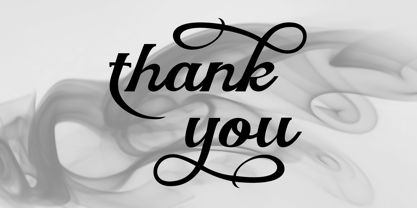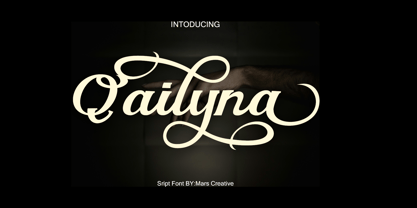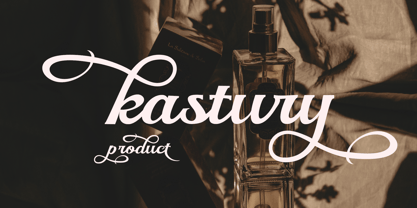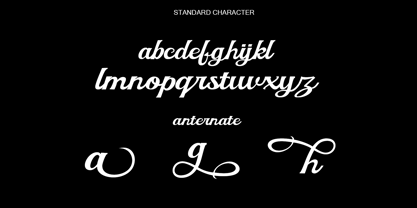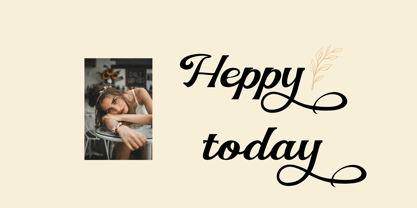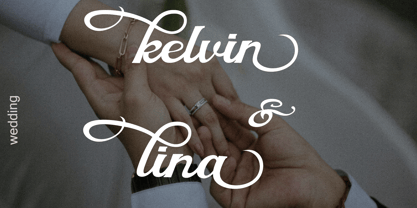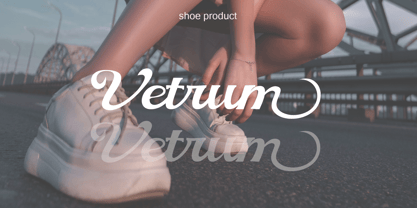
Qaelyna
by Mars Creative
The Qaelyna Font Family was designed by Al Muzammil and published by Mars Creative. Qaelyna contains 1 styles. More about this family
Qaelyna is an elegant script font that blends classic charm with a modern touch. Featuring smooth strokes, graceful curves, and flowing swashes, this font delivers a luxurious and romantic aesthetic. Each letter is carefully crafted to create a natural, fluid rhythm, making it feel refined and timeless. Qaiyna is perfect for premium branding, logos, wedding invitations, product packaging, editorial titles, and any design that aims to convey sophistication and beauty.
Designers: Al Muzammil
Foundry: Mars Creative